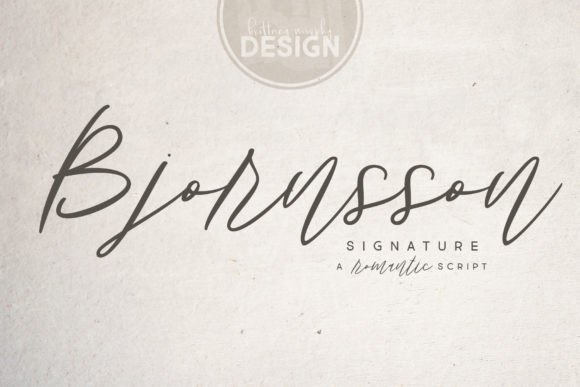
Introducing Bjornsson Signature Font - the best font for cursive words that will elevate your projects to the next level! Created by the talented brittneymurphydesign, this font family is a must-have for anyone who wants to add a touch of elegance and sophistication to their work.
What makes Bjornsson Signature Font stand out is its unique features. The font is designed in a way that makes the text appear more natural and handwritten, instead of being perfectly uniform. This effect is achieved through the use of smaller vowels, which gives the font a unique look and feel. This makes Bjornsson Signature Font perfect for adding a romantic touch to your projects, or dressing them up with an elegant script.
Whether you're a graphic designer, a blogger, or a social media influencer, Bjornsson Signature Font is the perfect choice for creating eye-catching designs. It's versatile enough to be used in a wide range of projects, from wedding invitations to Instagram quotes, making it a great investment for anyone who wants to take their design game to the next level.
So why should you download Bjornsson Signature Font? Not only is it a beautiful and unique font, but it's also designed to help you connect with your audience on an emotional level. The elegant script and natural handwriting effect will make your text stand out and draw the reader's eye, creating a sense of warmth and intimacy.
Don't settle for boring fonts that fail to make an impact. Download Bjornsson Signature Font today and take the first step towards creating stunning designs that will leave a lasting impression on your audience.